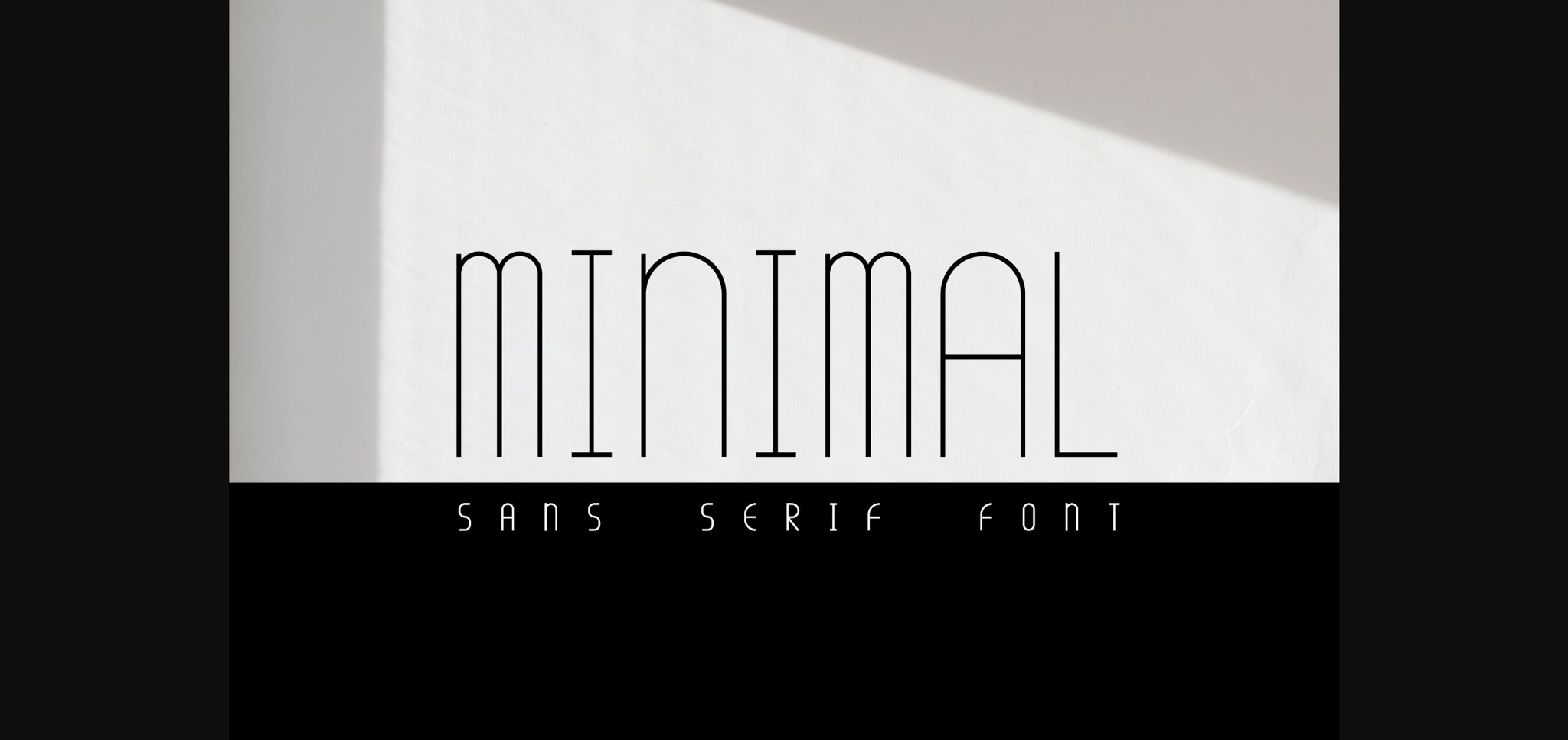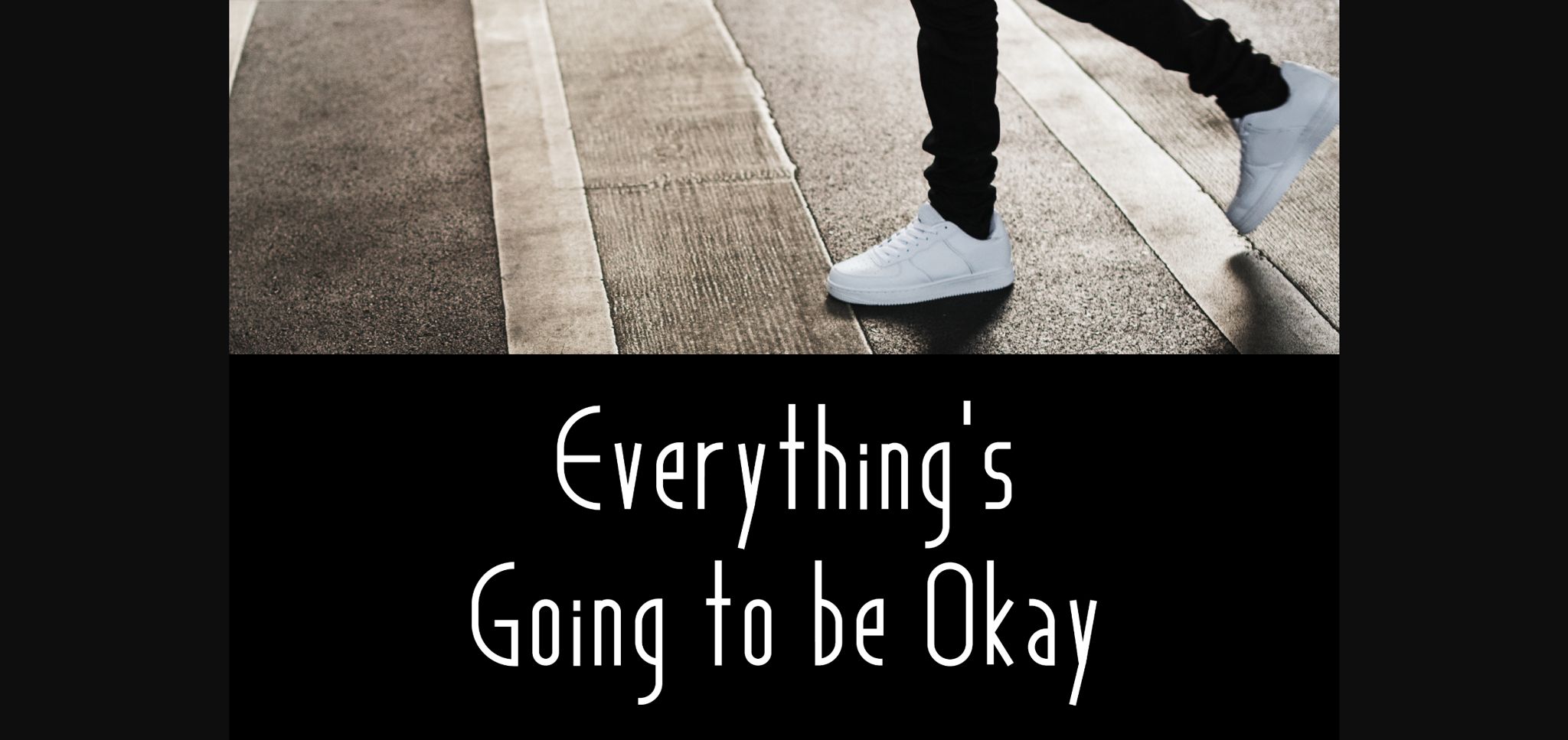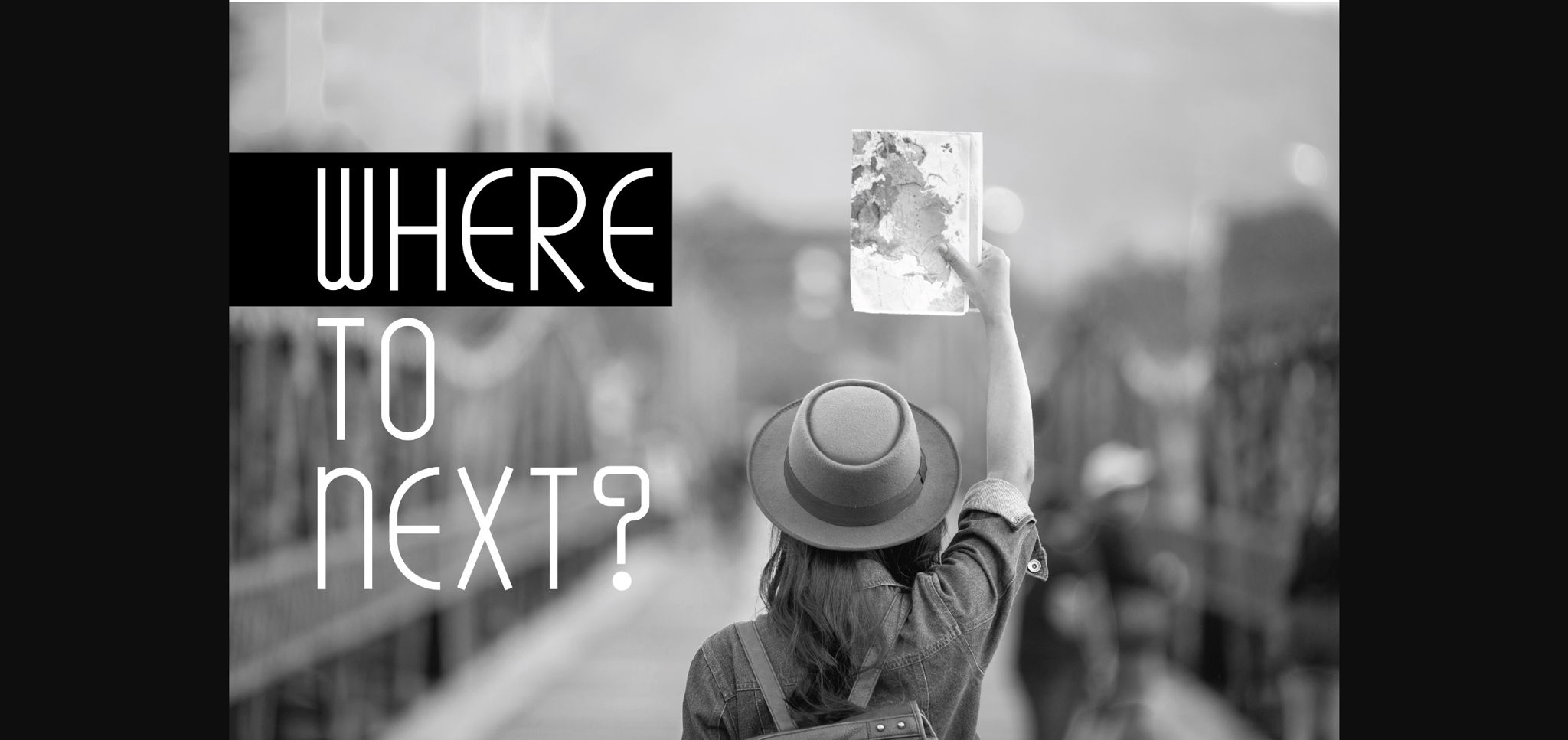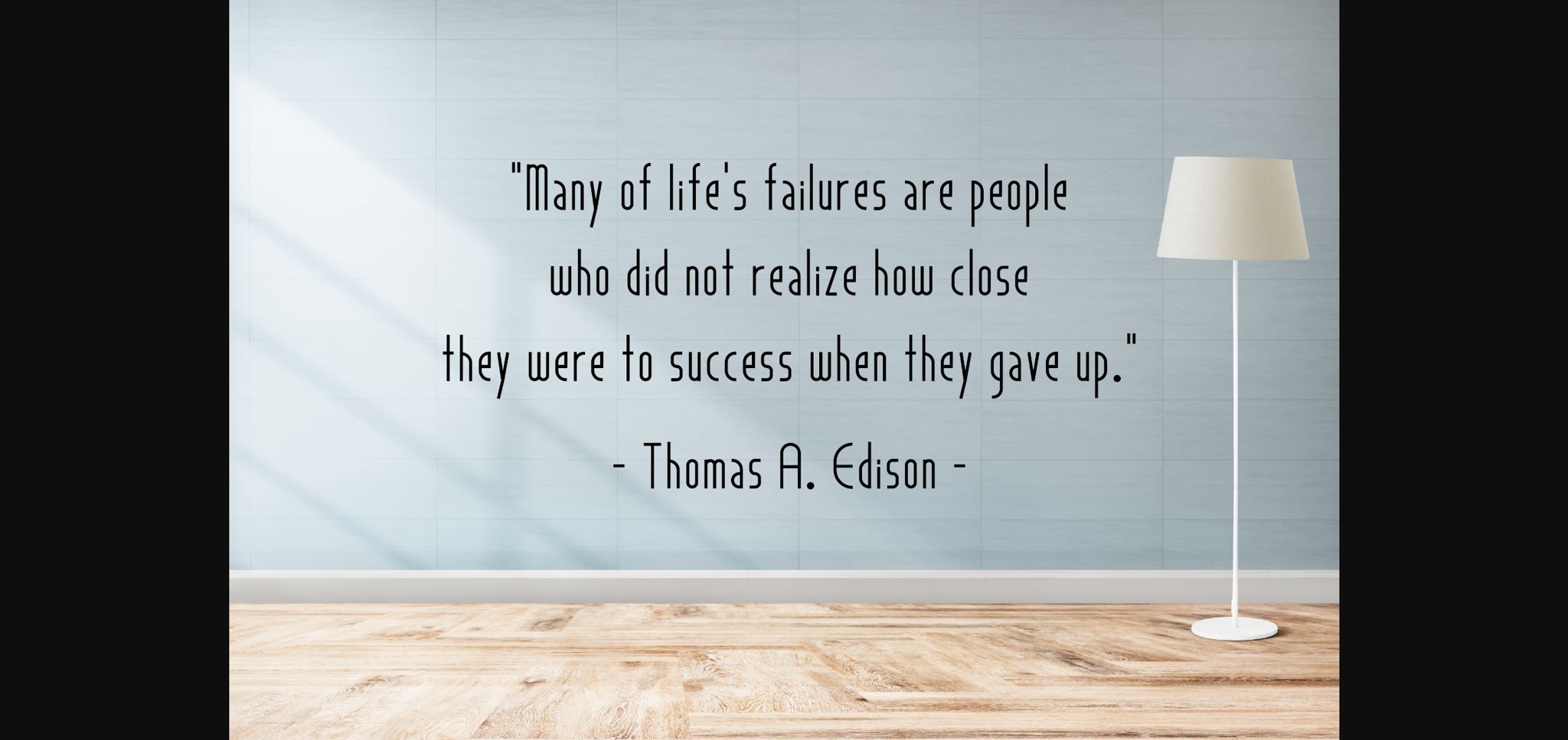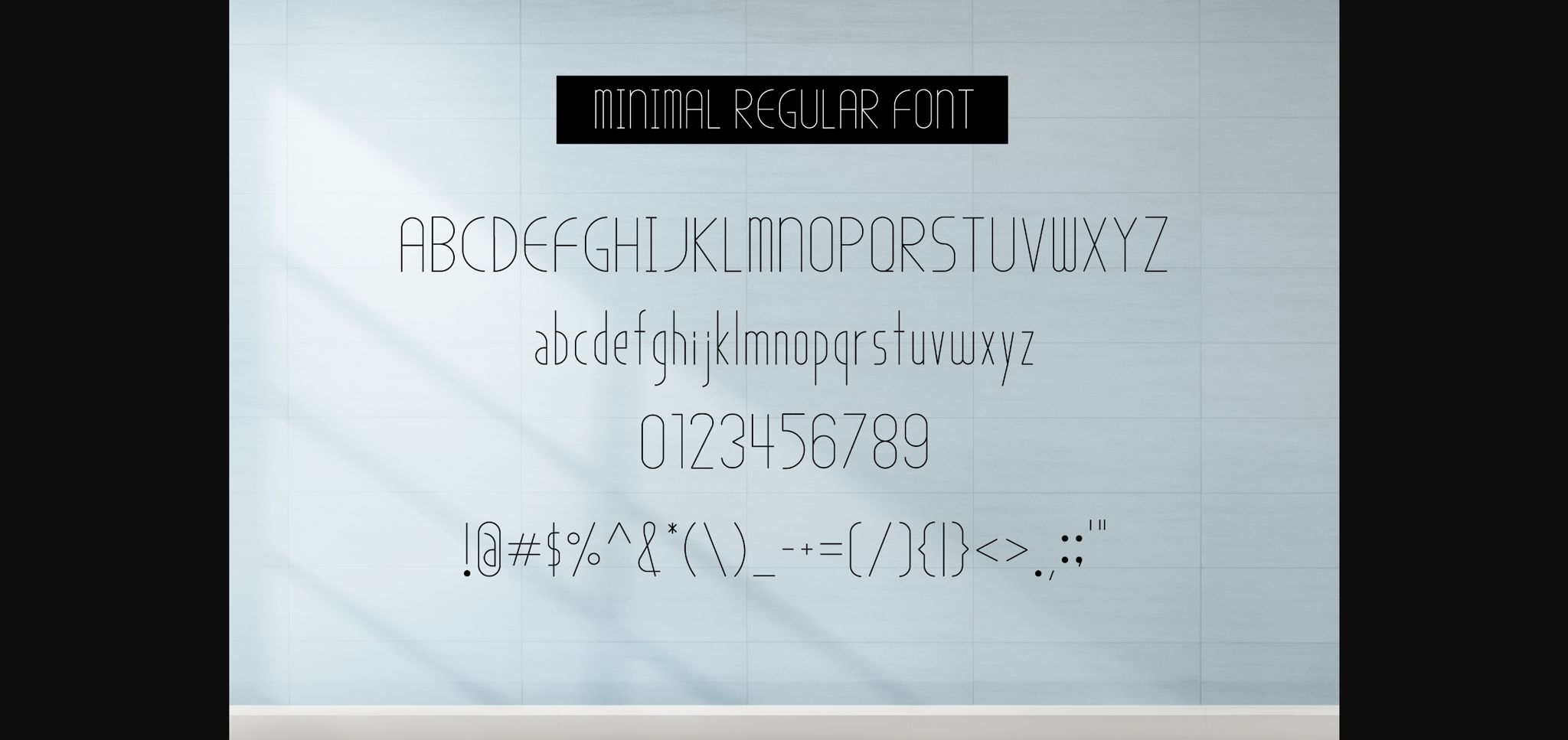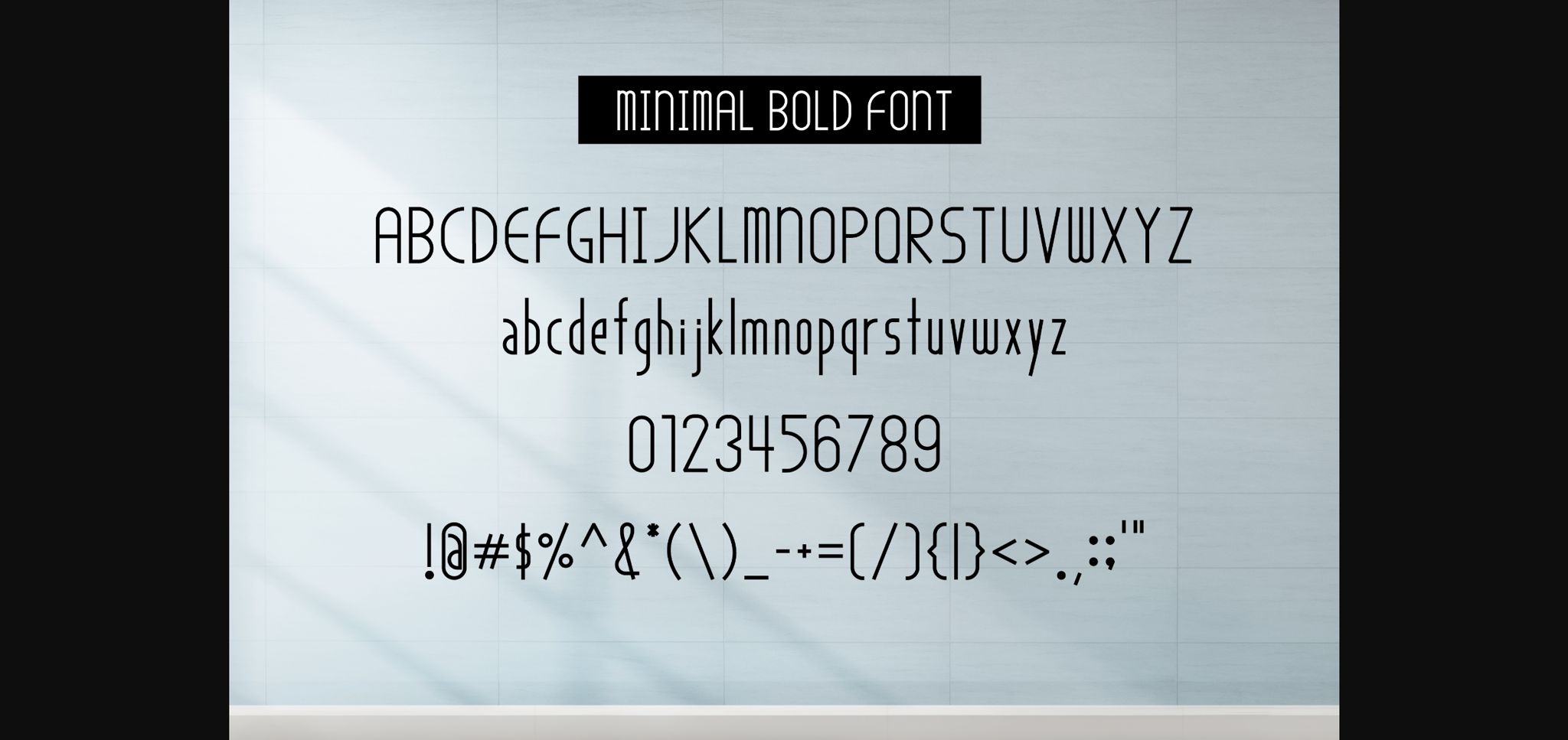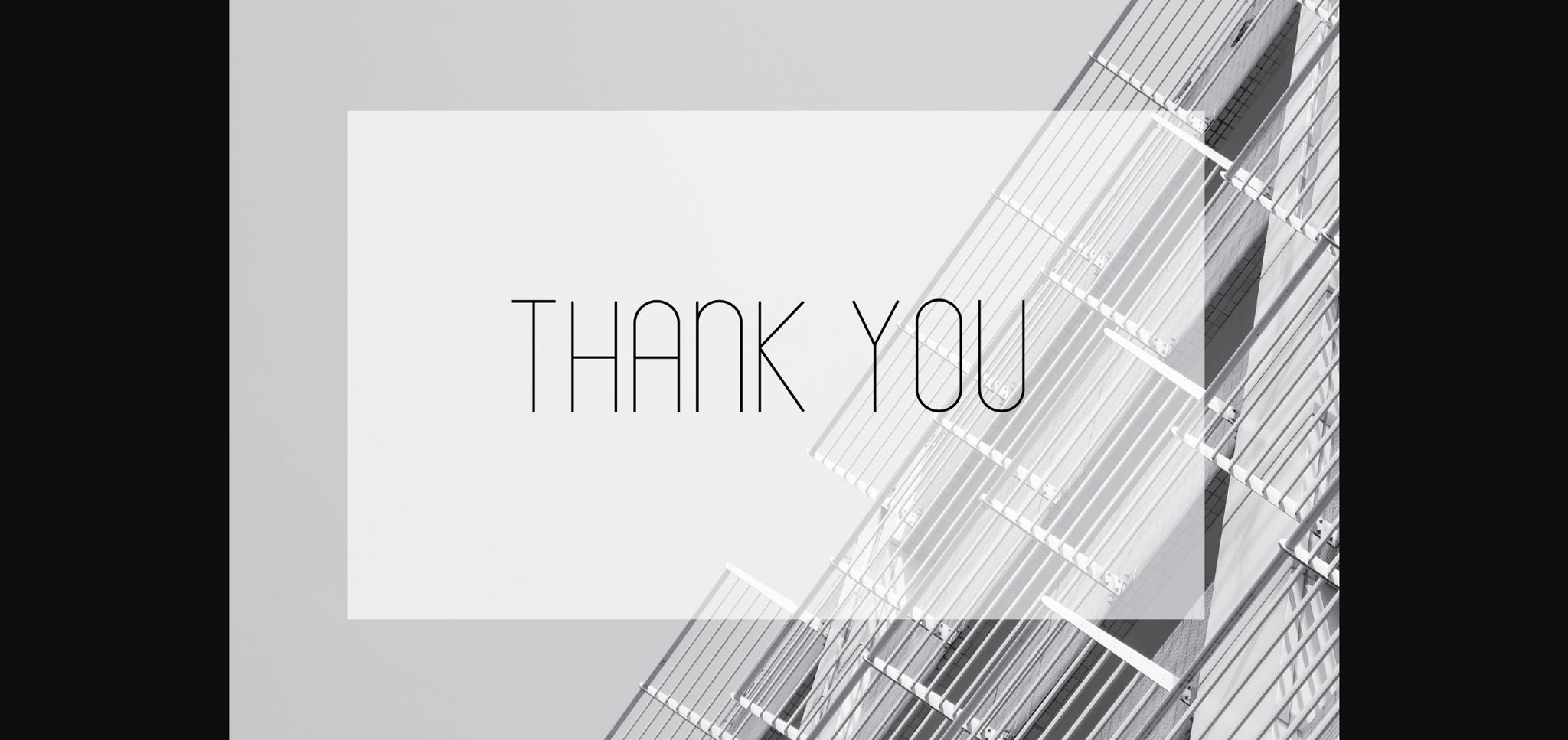
Minimal is a simple and neat sans serif font. It can easily be matched to an incredibly large set of projects, so add it to your creative ideas and notice how it makes them stand out!